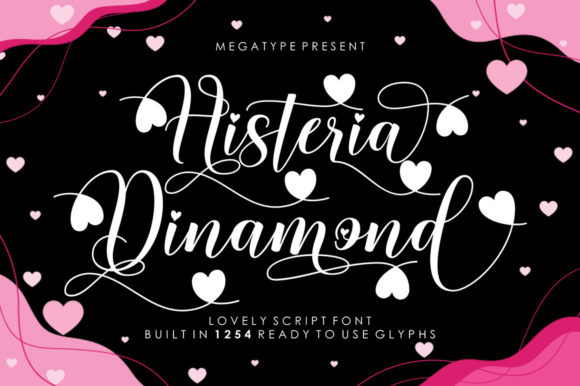
Unleash the enchanting beauty of Histeria Dinamond, a captivating script font that will transform your creative vision into an exquisite masterpiece. Immerse yourself in the world of calligraphy, where each letter dances along the baseline with grace and elegance.
Histeria Dinamond is a symphony of flowing strokes and delicate curves, meticulously crafted to capture the essence of romance and sweetness. Its highly detailed design adds depth and dimension to your creations, making them stand out from the crowd.
With Histeria Dinamond, the possibilities are endless. Create personalized invitations that evoke a sense of timeless elegance, design logos that exude sophistication, or craft social media posts that radiate charm. The font's PUA encoding ensures seamless access to all glyphs and swashes, empowering you to add intricate embellishments and flourishes to your projects with ease.
Histeria Dinamond is more than just a font; it's an artistic journey waiting to be explored. Its enchanting aura will captivate your audience, leaving them breathless with its sheer beauty and allure. Embrace the power of Histeria Dinamond and elevate your creative projects to new heights of artistry.